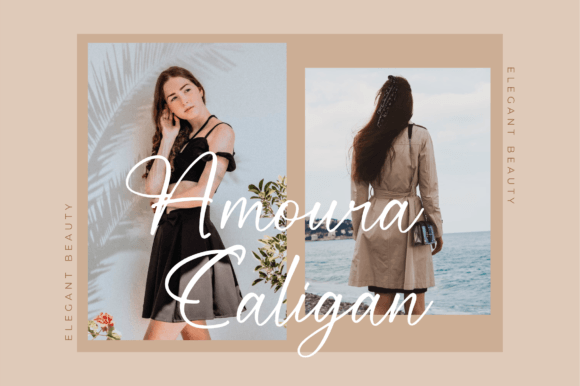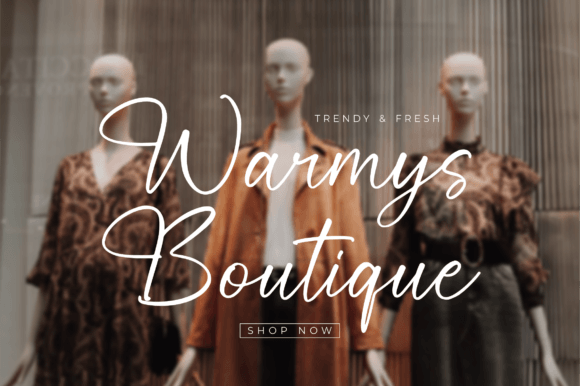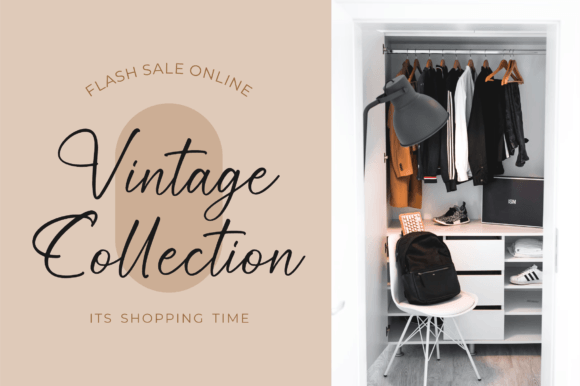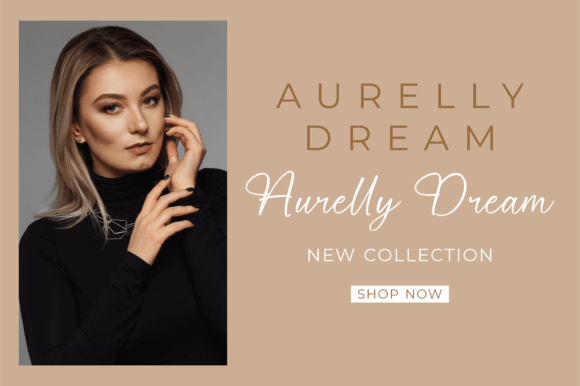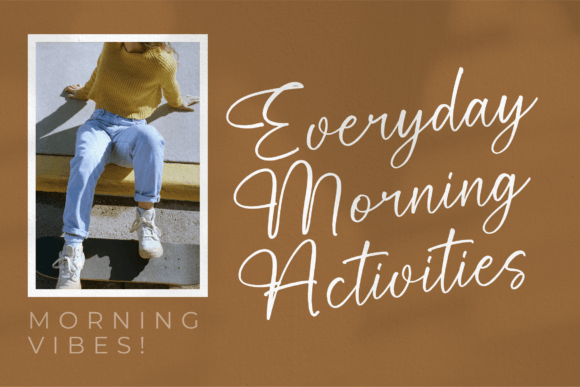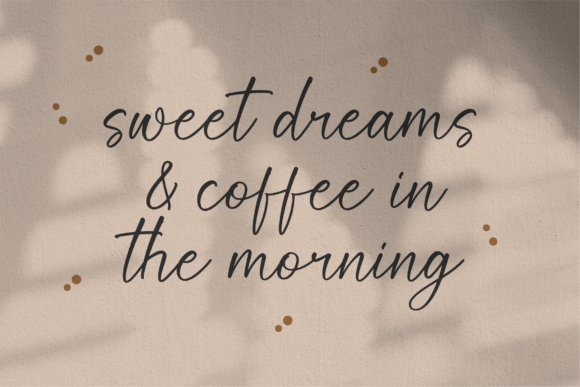
Introducing Harlytta Risedia Font: Elevate Your Designs with Elegance
Are you a designer or crafter looking for a font that can add a touch of sophistication and elegance to your creations? Look no further than Harlytta Risedia Font. This dazzling script font is neatly crafted and highly detailed, making it a wonderful asset to your font library. In this article, we’ll dive into the features and benefits of Harlytta Risedia Font and explore how it can enhance your designs.
What is Harlytta Risedia Font?
Harlytta Risedia Font is a beautiful script font that boasts a unique and stylish design. Its elegant curves and flourishes make it perfect for a wide range of applications, from branding and advertising to packaging and digital media. The font is carefully crafted to provide a high level of legibility, ensuring that your message is conveyed clearly and effectively.
Key Features of Harlytta Risedia Font
- Unique and Stylish Design: Harlytta Risedia Font features a distinctive and elegant design that sets it apart from other fonts.
- Highly Detailed: The font is carefully crafted to provide a high level of detail, making it perfect for use in a variety of applications.
- Neatly Crafted: The font is designed to be clean and easy to read, making it perfect for use in body text or headings.
- Versatile: Harlytta Risedia Font can be used in a wide range of applications, from digital media to print materials.
Benefits of Using Harlytta Risedia Font
So why should you choose Harlytta Risedia Font for your designs? Here are just a few benefits of using this amazing font:
- Adds Elegance and Sophistication: Harlytta Risedia Font can add a touch of elegance and sophistication to your designs, making them stand out from the crowd.
- Improves Legibility: The font’s clear and concise design makes it easy to read, even at small sizes.
- Increases Versatility: Harlytta Risedia Font can be used in a wide range of applications, making it a great addition to your font library.
- Enhances Creativity: The font’s unique design and elegant curves can inspire creativity and help you to think outside the box.
How to Use Harlytta Risedia Font
Harlytta Risedia Font is easy to use and can be incorporated into your designs in a variety of ways. Here are a few tips for getting the most out of this amazing font:
- Use it as a Headline Font: Harlytta Risedia Font is perfect for use in headlines and titles, where its elegant curves and flourishes can really make an impact.
- Pair it with Other Fonts: The font pairs well with a variety of other fonts, making it easy to create visually appealing combinations.
- Experiment with Different Sizes: Harlytta Risedia Font looks great at a variety of sizes, from small and delicate to large and bold.
In conclusion, Harlytta Risedia Font is a stunning script font that can add a touch of elegance and sophistication to your designs. Its unique and stylish design, highly detailed craftsmanship, and versatility make it a wonderful asset to your font library. Whether you’re a designer, crafter, or simply someone who appreciates beautiful typography, Harlytta Risedia Font is definitely worth checking out.